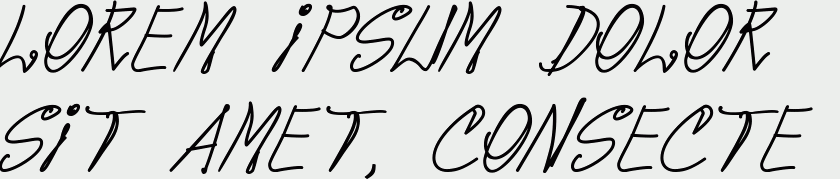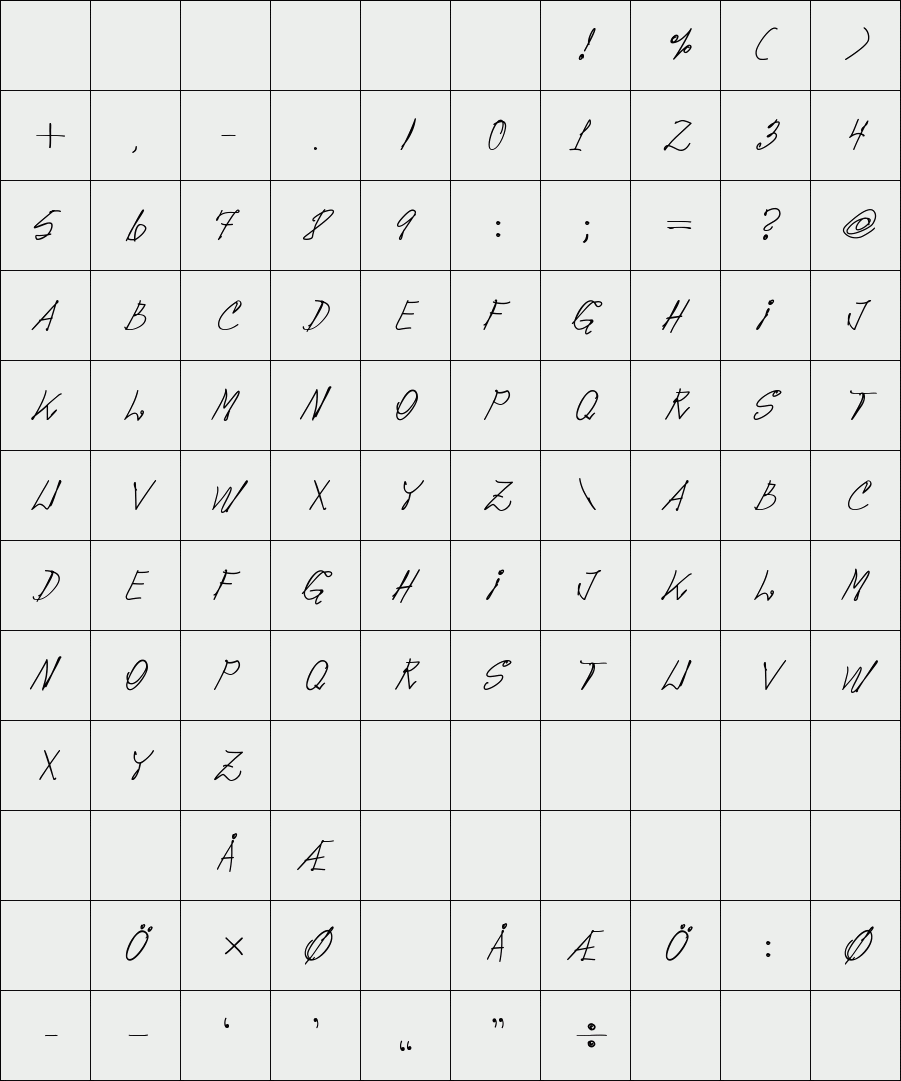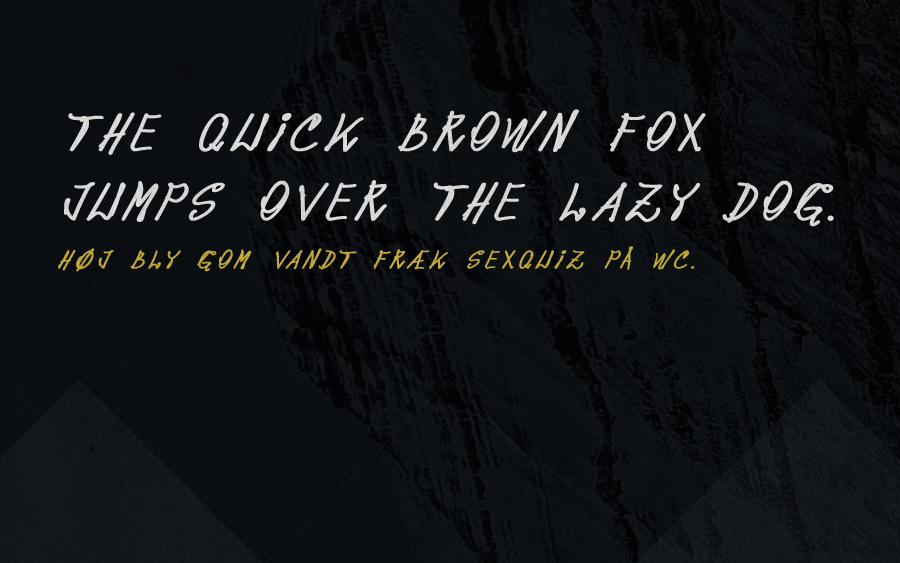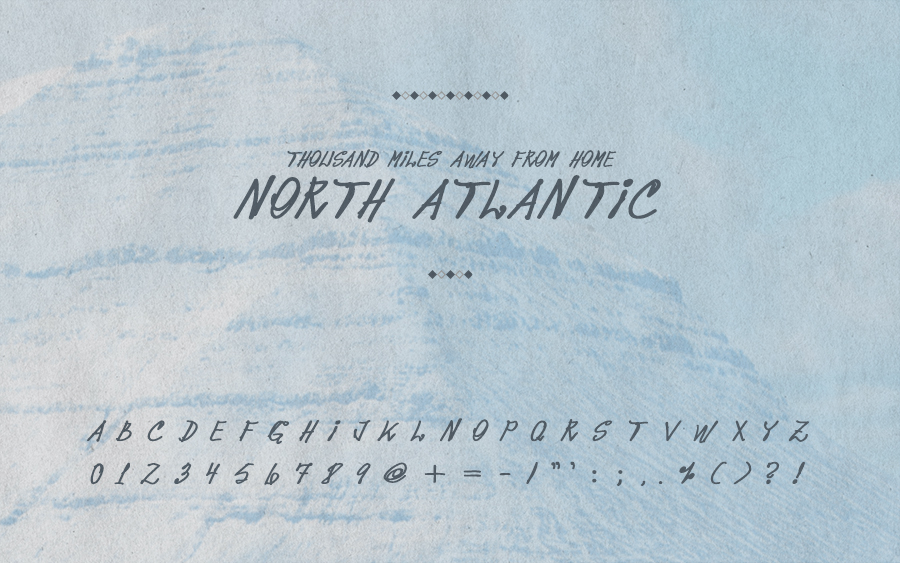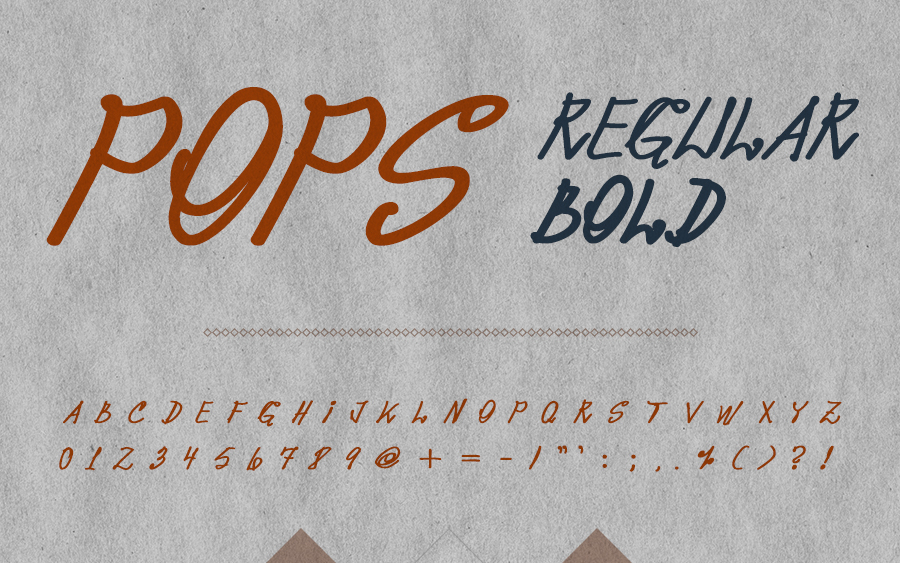
POPS
Every handwritten letter is unique.
Some handwriting look beautiful, some handwriting has a certain flow and some are more personal than others.
POPS is a font based on one of my fathers handwriting styles. Normally used for short messages and headlines.